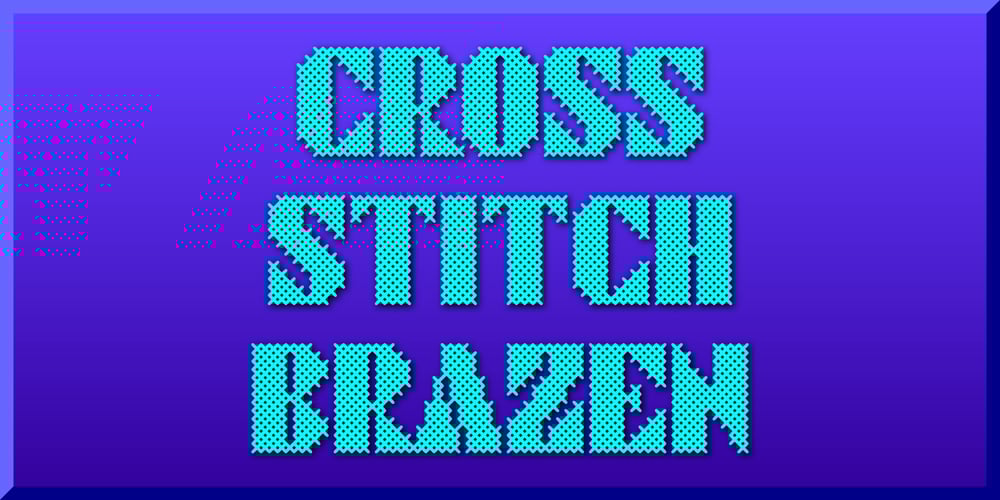
Cross Stitch Brazen Font Family was designed by Gerald Gallo and published by Gerald Gallo. Cross Stitch Brazen contains 1 styles and family package options. Cross Stitch Brazen is based on upper case characters 13 stitches tall and contains the upper case characters A-Z, ampersand, question and exclamation marks, bullet, comma, and period.